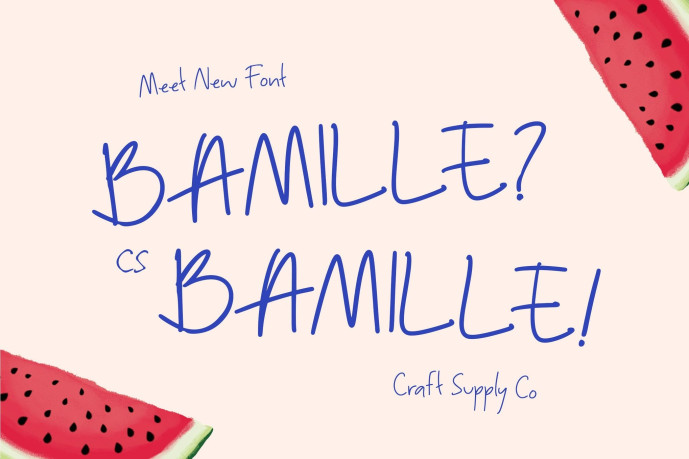
Bamille – Handwriting Font
CS Bamille – A Handwriting Font with Warm Authenticity: Expressive Handwriting Font and Natural Strokes
Soft and Expressive Style This is a handwriting font designed to capture the charm of natural pen strokes. Its fluid and organic forms give every letter a sense of softness and authenticity, making it an excellent choice for projects that need a personal, human touch.
Authenticity in Every Curve With its handwritten sans serif characters, this font conveys warmth and sincerity. Each curve feels natural and unforced, adding personality and depth to text. Whether used in branding, casual designs, or personal projects, it creates a voice that feels approachable and relatable.